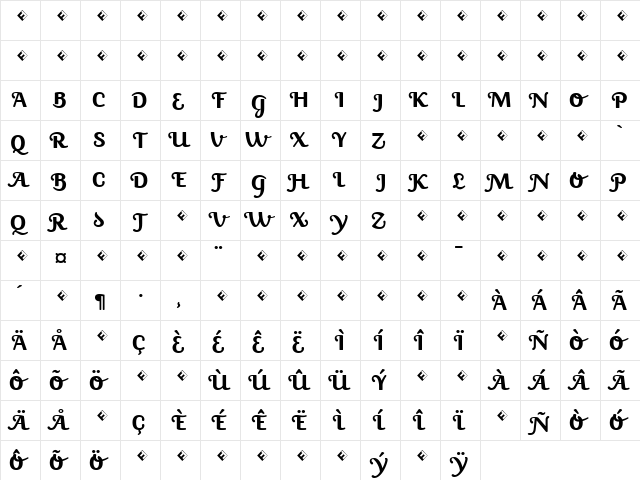
JackieSwashBold Bold
Design Context for JackieSwashBold Typeface
JackieSwashBold brings a calligraphic fluidity to the page — its connecting strokes and expressive curves give it an unmistakably human quality. Its bold stroke weight gives it real presence on the page.
Font Pairing: Combine JackieSwashBold with a simple geometric sans for maximum contrast — the tension between flowing curves and clean structure is a classic typographic pairing.
Pro Tip: Use JackieSwashBold for short runs of text — names, titles, or taglines. Extended body copy in script faces tires the eye quickly.